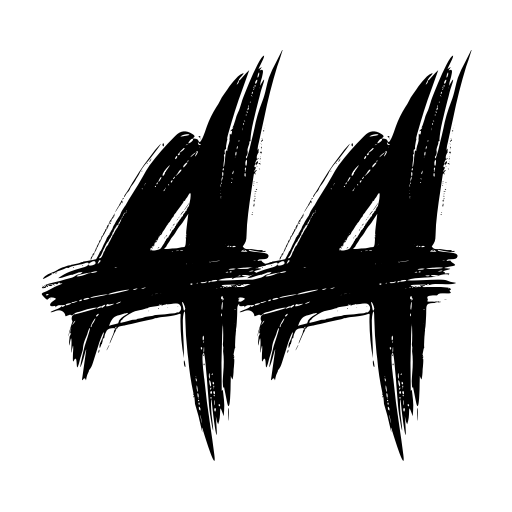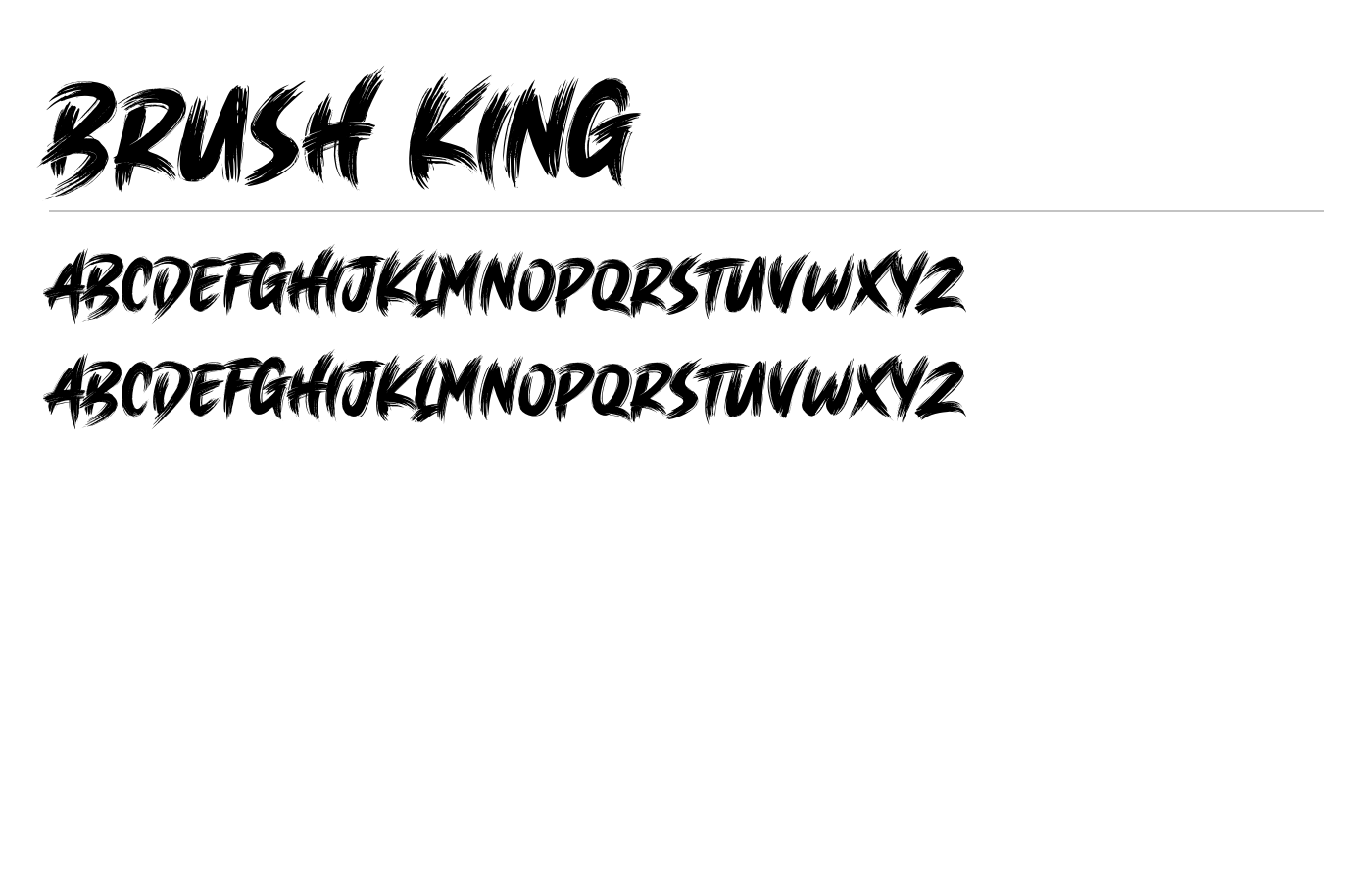
Brush King is a bold, expressive brush script font with thick, textured strokes that mimic hand-painted brushwork. Its dynamic style conveys energy and creativity, making it ideal for eye-catching headlines, logos, and branding in artistic or urban contexts. This font stands out with its rough edges and strong personality, perfect for designs that need a casual yet impactful look.
Brush King Font
| Designer | Rangga Singgih Subekti |